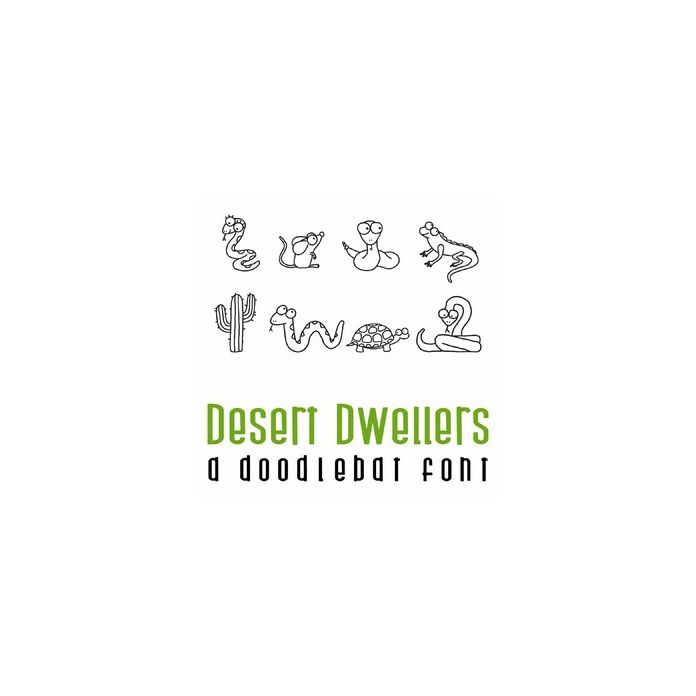
Desert Dwellers Doodlebat Font
This fun doodlebat font features 26 adorable desert dwellers Perfect for cards, gifts, decor, crafts, scrap book pages, planner stickers and more!